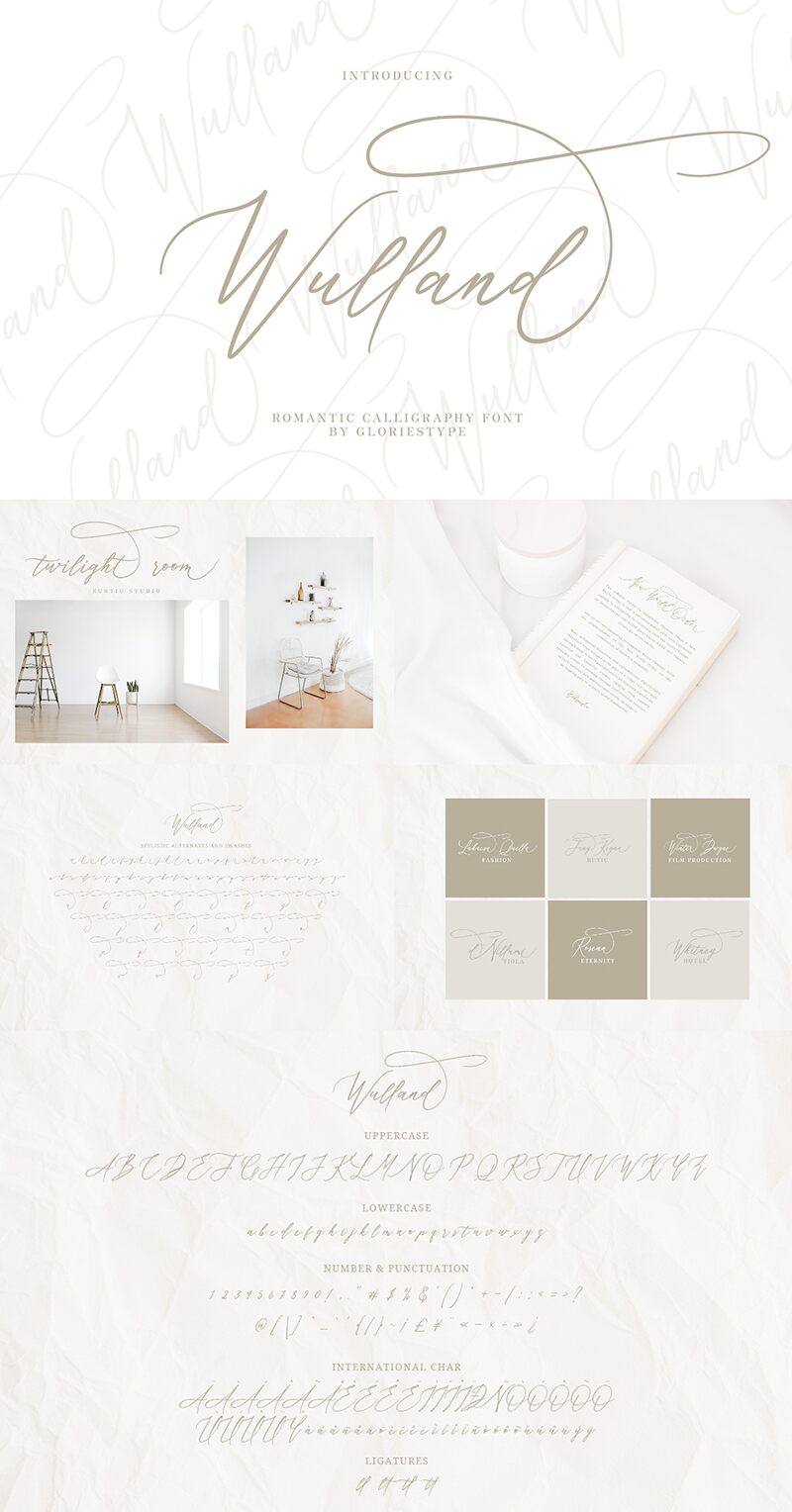
Wulland
Introducing Wulland, a thin signature font designed by Arie Iskandar. Perfect for creating unique and eye-catching logos, invitations, designs, and signatures. It's also suitable for special occasions such as weddings, birthdays and anniversaries.